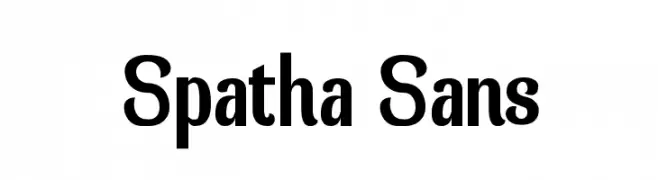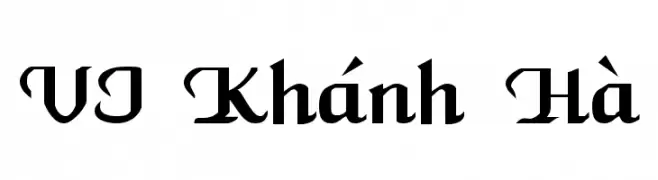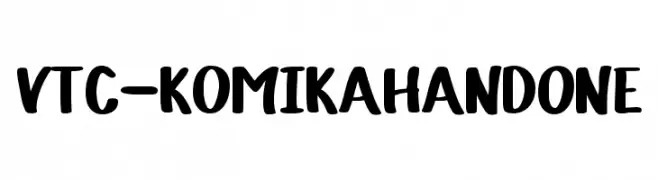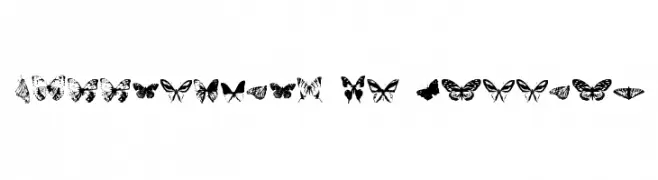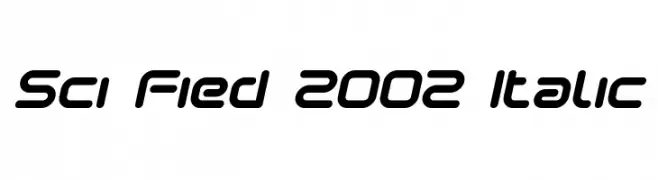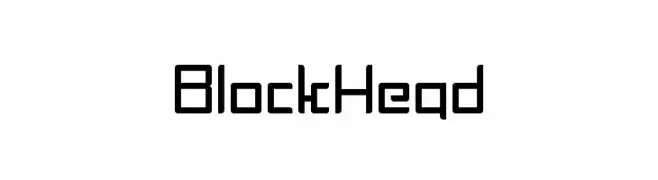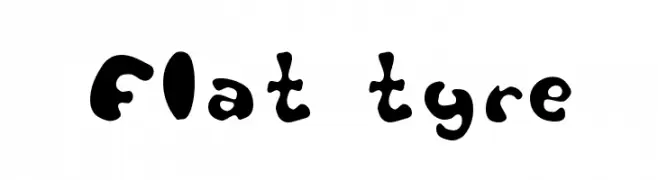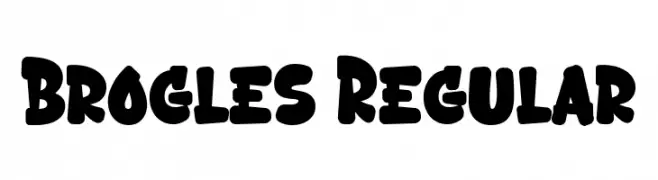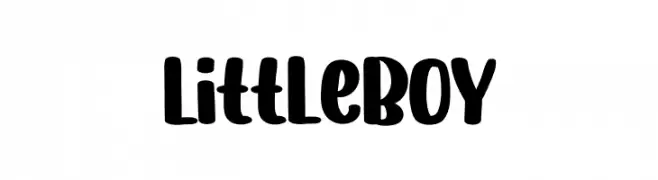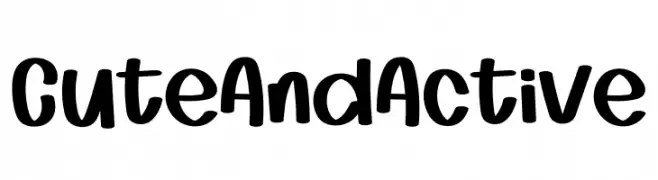
A modern sans-serif font with a slightly condensed style and medium contrast.
A bold collection of solid shapes and symbols for versatile design use.
A medieval-inspired font with sharp, angular lines and decorative serifs.
A sleek, italicized font with a futuristic and dynamic design.
A futuristic, italicized typeface with rounded edges and a sleek, modern appearance.
A geometric, blocky font with uniform line thickness and a digital aesthetic.
A bold, playful font with thick, rounded strokes and a retro vibe.
A playful, bold, hand-drawn font with thick, rounded strokes.
A playful, bold, and rounded hand-drawn font with a whimsical style.
A bold, playful font with rounded, bubbly characters.
A modern, thin sans-serif font with clean lines and balanced spacing.
A bold, playful font with rounded edges and a hand-drawn feel.
A clean, modern sans-serif font with a light weight and geometric precision.
A pixelated, retro-style font with a blocky, digital appearance.
An elegant, flowing script font with a sophisticated cursive design.
A bold, geometric unicase font with a modern and uniform appearance.
A bold, playful font with a 3D shadow effect, perfect for lively designs.
A bold, outlined font with a modern and geometric style.
A bold, distressed typewriter-style font with a grunge, vintage aesthetic.
A gritty, distressed blackletter-style font with a gothic, urban aesthetic.
A bold, ornate Blackletter font with a classic Gothic style.
A modern, sans-serif typeface with a clean, condensed design.